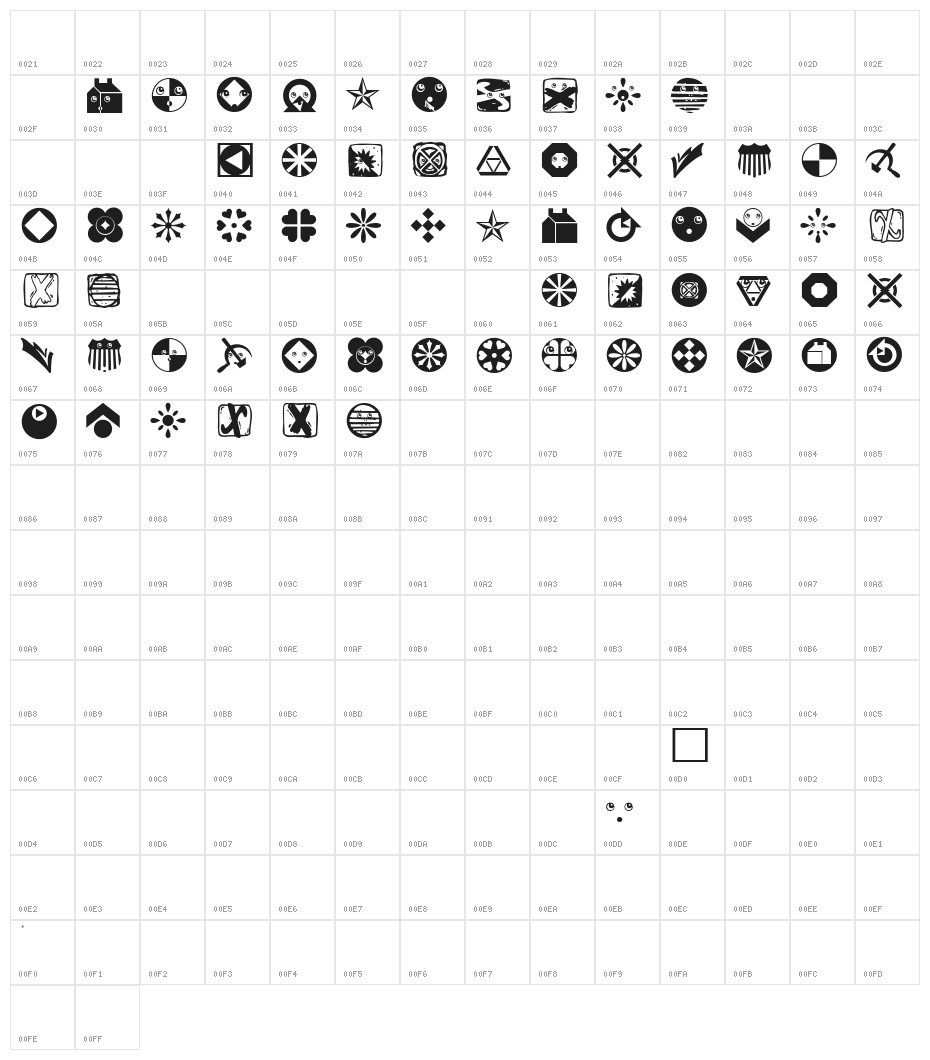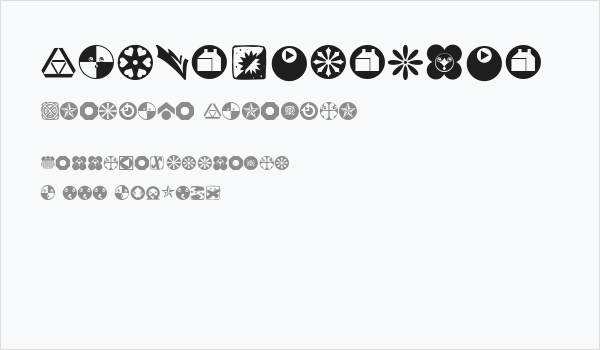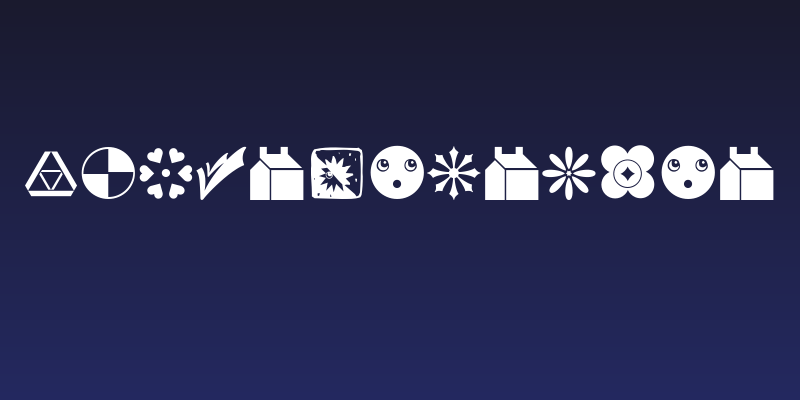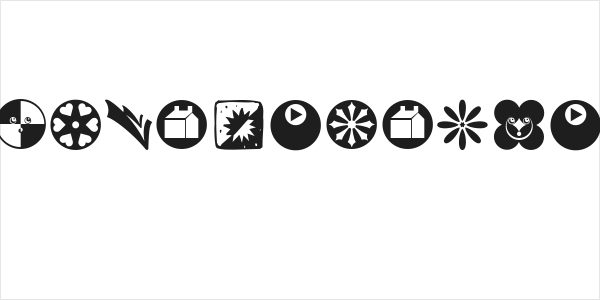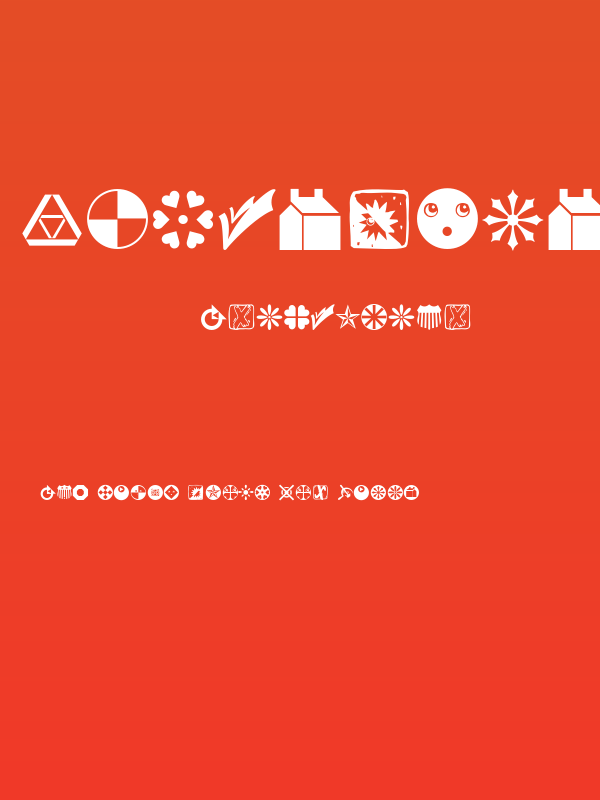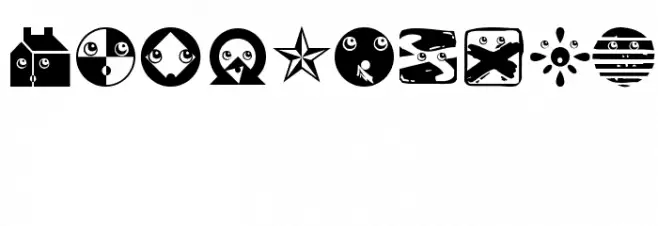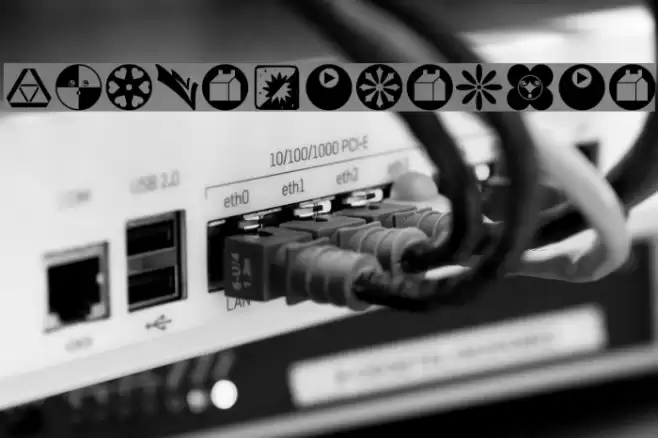
DingsbumsPlus Font
DingsbumsPlus Description
A decorative dingbat font featuring a wide variety of playful and abstract symbols, including geometric shapes, stars, faces, arrows, houses, and textured icons. The glyphs are bold, high-contrast, and mostly circular or square, with some containing whimsical facial expressions or hand-drawn effects.
| Overall Style | Decorative, Playful, Whimsical |
| Use Case | Icons, Decorative elements, Themed graphics, Non-textual communication |
| Proposed Projects | Children’s books, party invitations, playful branding, educational materials, scrapbooking, icon sets, decorative dividers. |